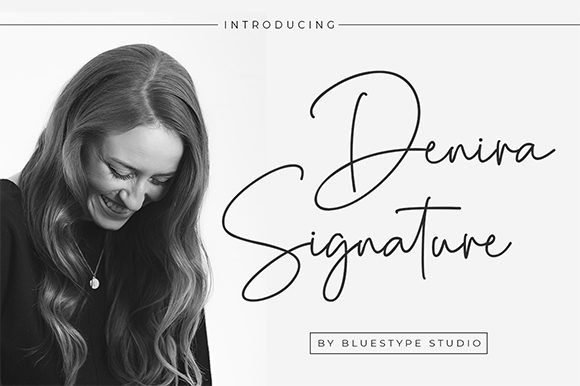
Unleashing Your Creative Potential with the Denira Signature Font
There’s something magical about sitting down with a blank canvas, a cup of coffee, and a pen. The possibilities are endless, and the world is your playground. As designers, we’ve all experienced those moments of pure creativity where the ideas flow effortlessly, and the design comes alive. But sometimes, all it takes is the right tool to unlock that creative potential.
Enter the Denira Signature Font, a beautifully crafted handwritten font that adds a touch of elegance to any design. With its timeless classic style and friendly feel, it’s the perfect companion for creating original and outstanding designs. Whether you’re a seasoned pro or just starting out, the Denira Signature Font is an invaluable asset to have in your toolkit.
Denira Signature Font Key Features
- Font Family: Denira Signature Font is a modern script font designed to create elegant and sophisticated signatures.
- Unique Characteristics: The font features a unique blend of handwritten and digital elements, creating a distinctive and personalized touch for signatures.
Denira Signature Font Review
Overall, I think the Denira Signature Font is a solid choice for those looking for a modern and elegant font. Here are some of its standout features:
- ✨ Beautifully crafted letters with a unique flair, perfect for creating a signature look.
- ✨ Highly legible, making it great for both digital and print applications.
- ✨ Offers a wide range of weights and styles, allowing for versatility in design.
- ⚠️ Limited international language support, which may be a concern for designers working with non-English clients.
- ⚠️ The font’s complexity may make it challenging to customize or modify.
- ⚠️ Some users may find the font’s modern aesthetic too trendy, which may not be suitable for all designs.
Overall, I think the Denira Signature Font is a great choice for designers looking for a stylish and sophisticated font. While it has some limitations, its unique flair and versatility make it a valuable addition to any design library.
Tips for Getting the Most Out of Denira Signature Font
Use the font in combination with other design elements to create a unique and professional look.
Experiment with different font sizes and styles to add visual interest to your design.
Consider pairing the font with a bold or sans-serif font to create contrast and balance.
Denira Signature Font is ideal for branding, logos, and business cards.
Use it for creating elegant and sophisticated designs, such as invitations, menus, and certificates.
Apply the font to create a consistent look across your marketing materials and website.